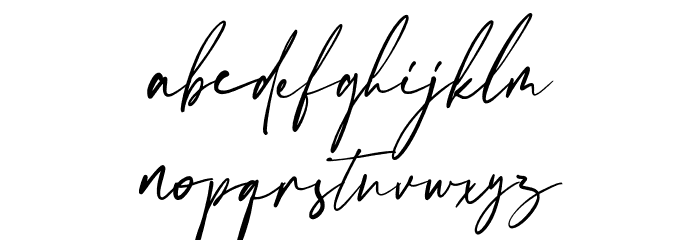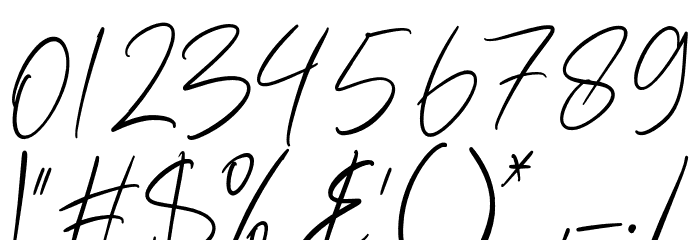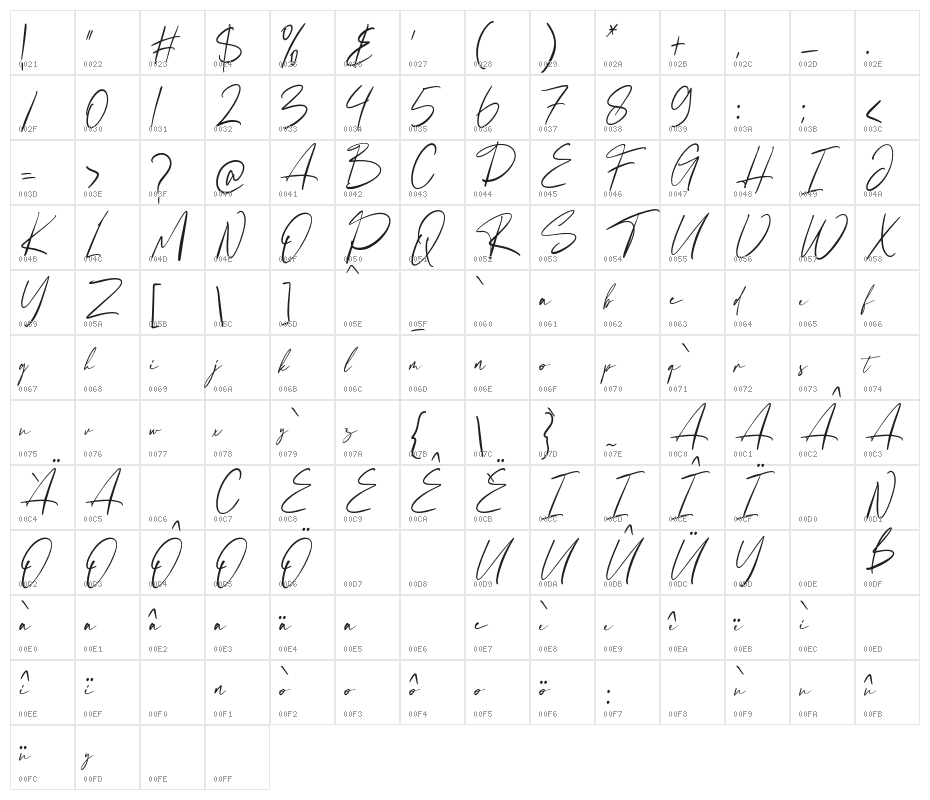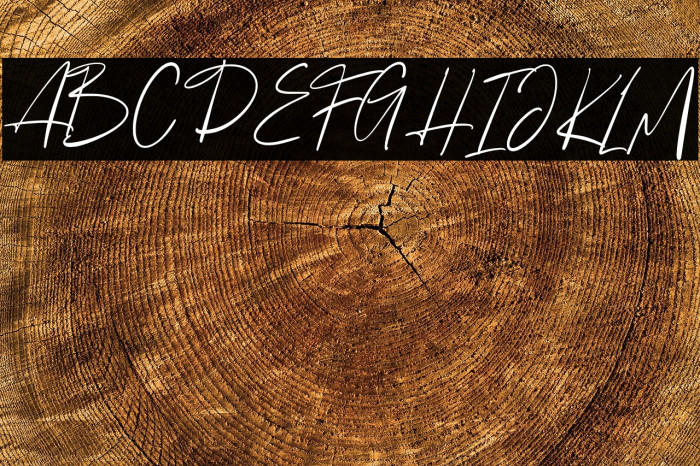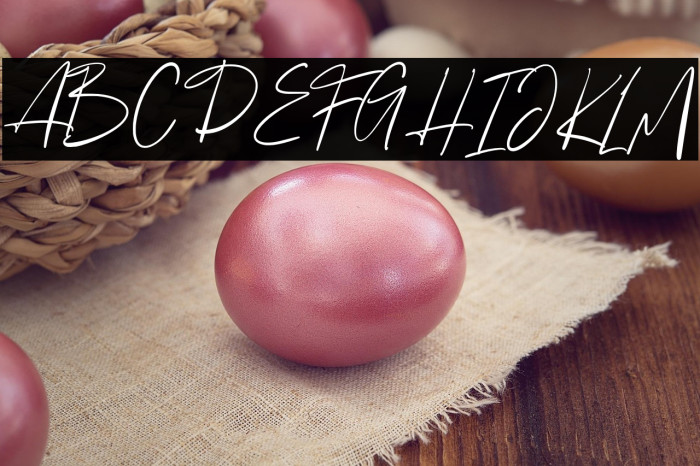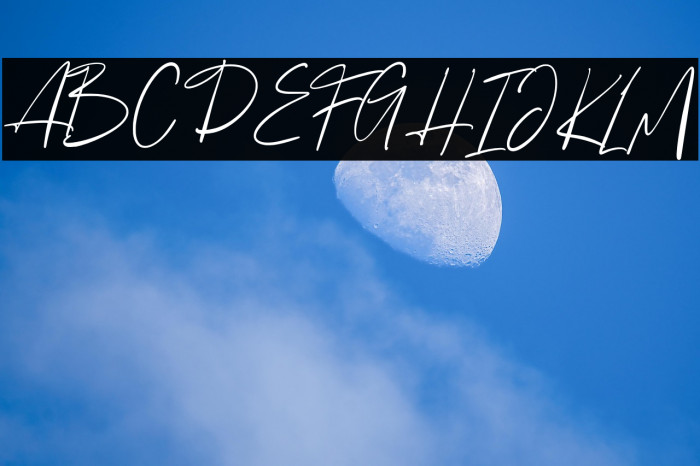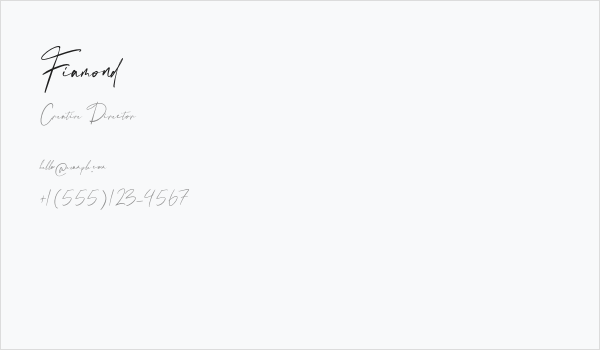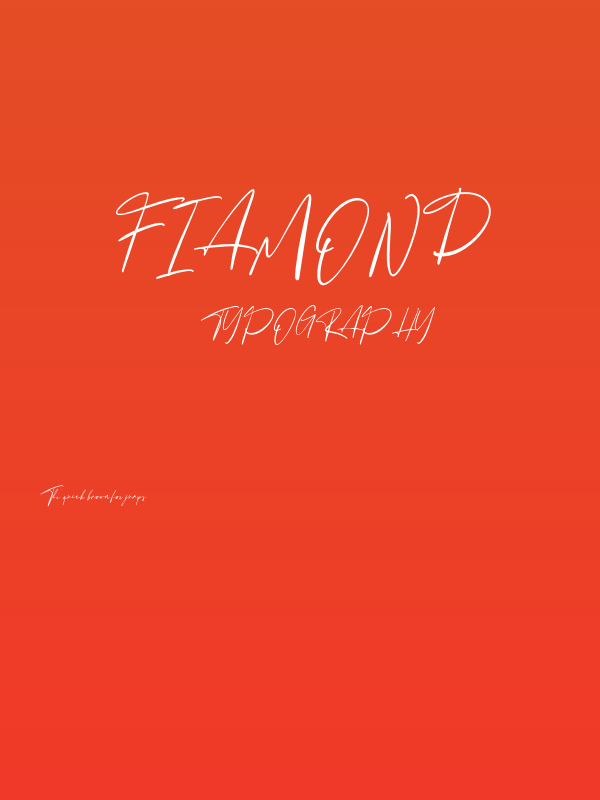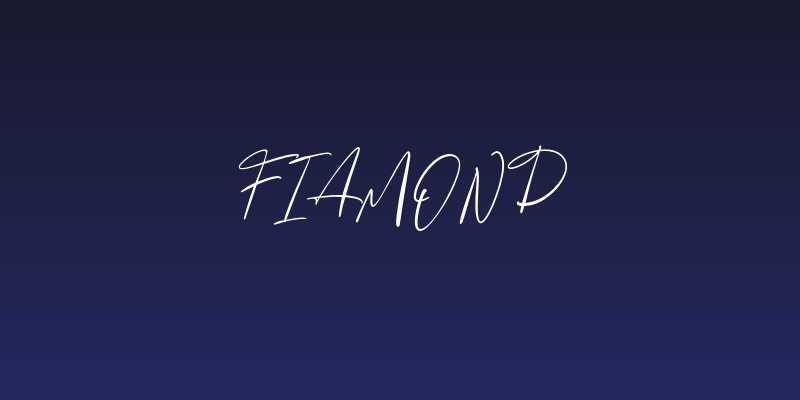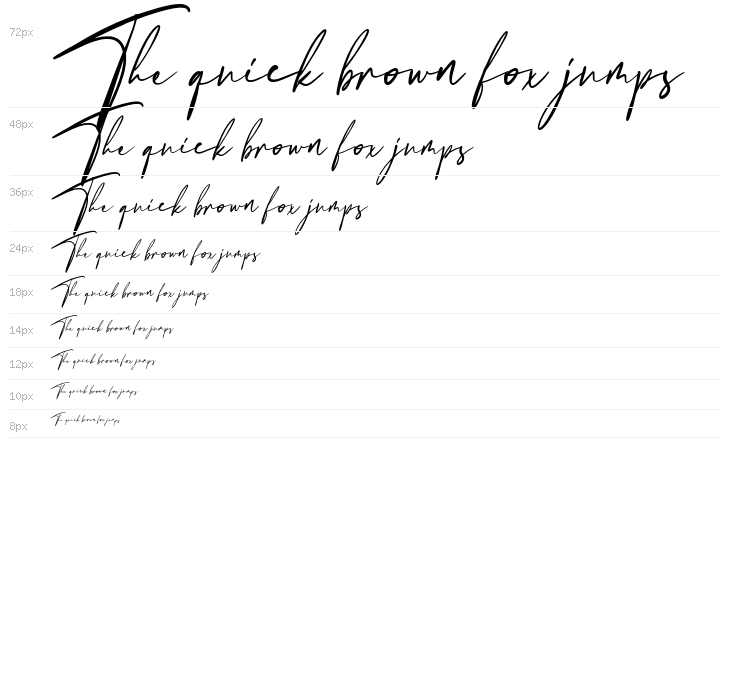
Fiamond Font
This font features a dynamic and fluid script style, characterized by its elegant and flowing strokes. The uppercase letters exhibit a sense of movement and grace, with each character seamlessly connecting to the next. The lowercase letters maintain this fluidity, offering a cohesive and harmonious appearance. The numerals are crafted with the same attention to detail, ensuring consistency throughout. Special characters are thoughtfully integrated, adding versatility to the font's application. The overall design exudes a modern yet timeless appeal, making it suitable for a variety of creative projects.
A fluid and elegant script font with dynamic strokes and seamless connections.